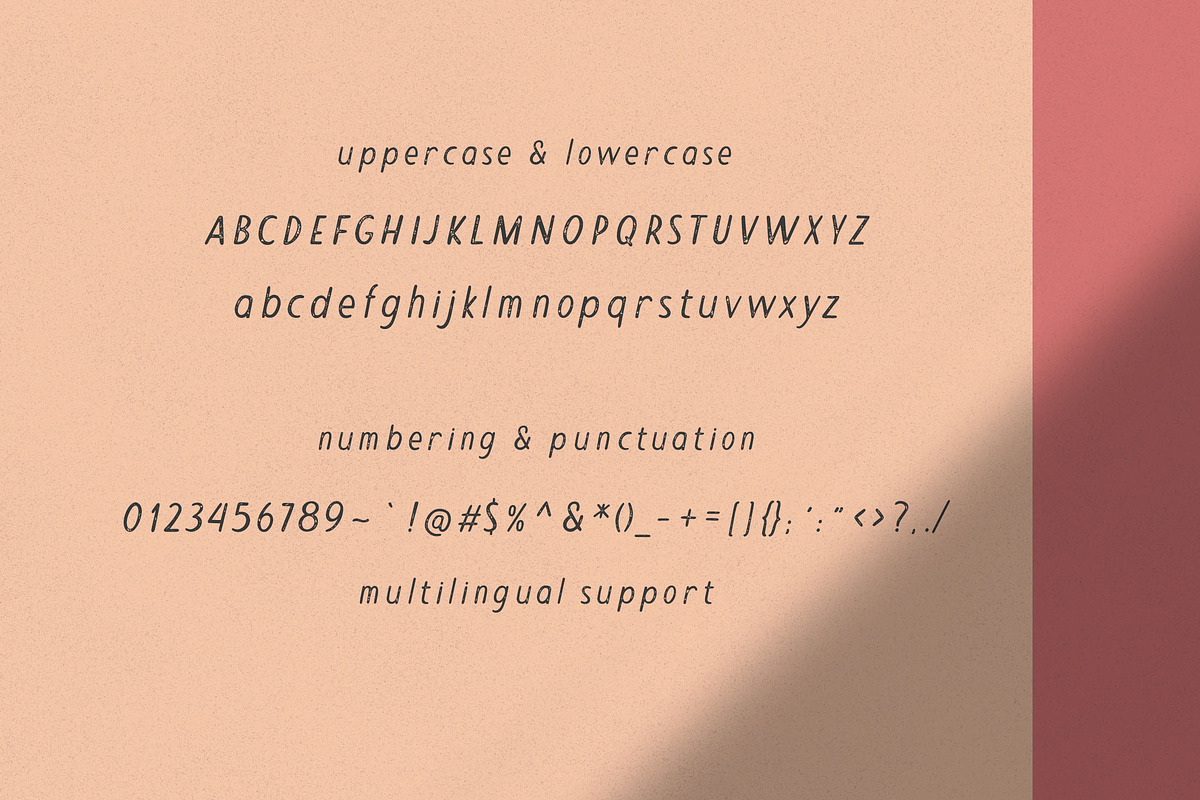
Sunnyside Rough Sans
Sunnyside is a new italic rough sans serif font with classic and vintage feels.
Sunnyside Sans Serif font is perfect for your up coming projects. Such as logo branding, editorial design, stationery design, blog design, modern advertising design, card invitation, art quote, home decor, book/cover title, special events ( wedding, birthday, etc ), and any more.